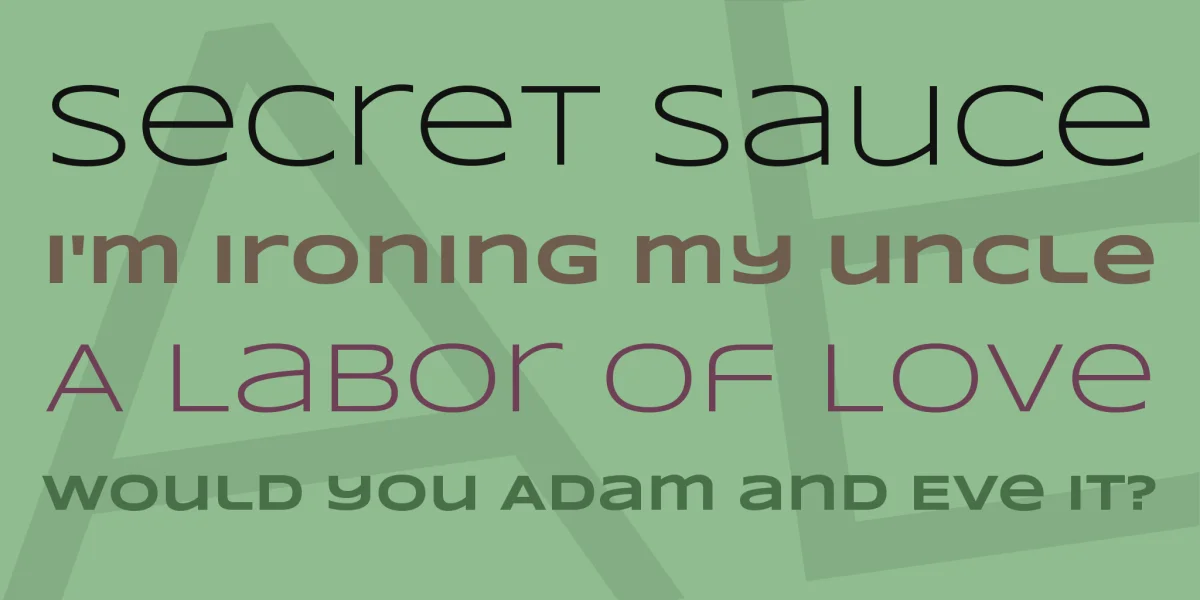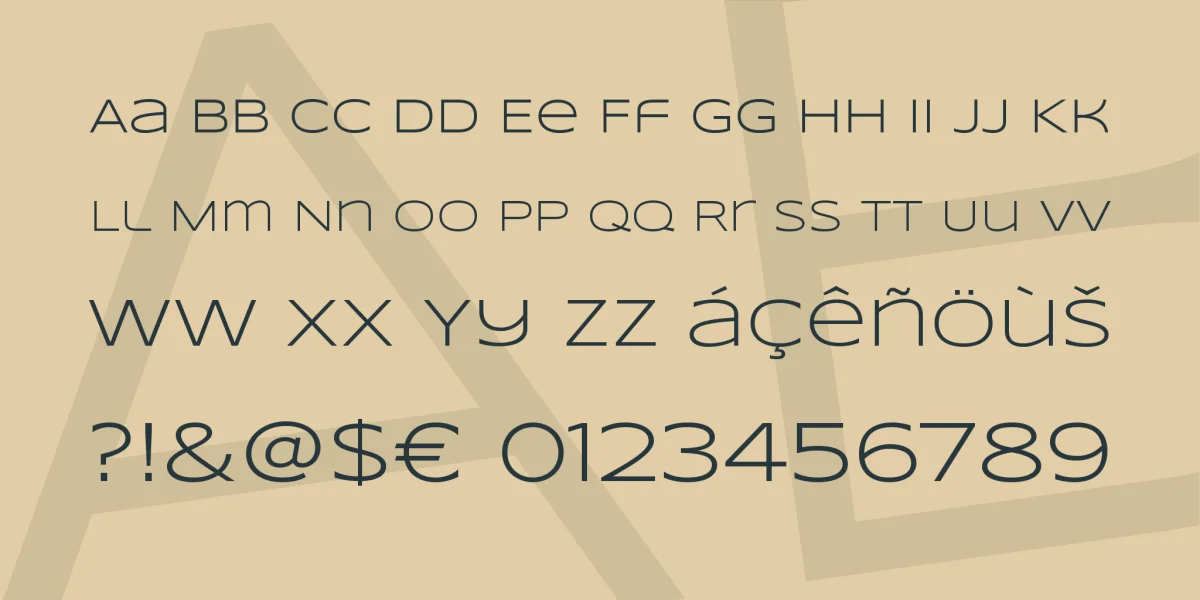
Syncopate was designed in 2010 as a headline and display typeface.
Light in weight with a wide body width, it is a unicase design where the traditional lowercase x-height has been abandoned and a single uppercase height rules the design of all of the alpha and numeric glyphs. Some uppercase glyphs are copied to their lowercase slots, where other lowercase glyphs such as the a, e, and r, are scaled up to uppercase heights. This motif allows for a vast array of setting possibilities.
Though intended for display, Syncopate does work well for limited text runs. The letter forms are a modern and stylish sans serif inspired by the many trendy sans serif typefaces that are so prevalent today. The lighter weight and wide body impart a certain level of elegance, while the unicase approach keeps the look lively and fresh.
A true bold was added in April 2011.